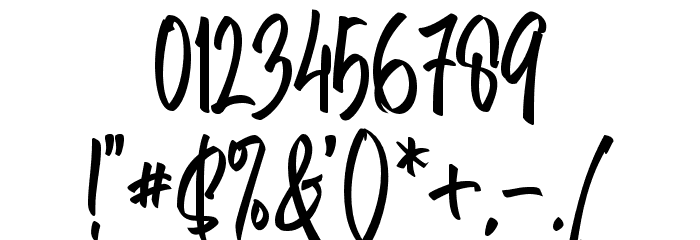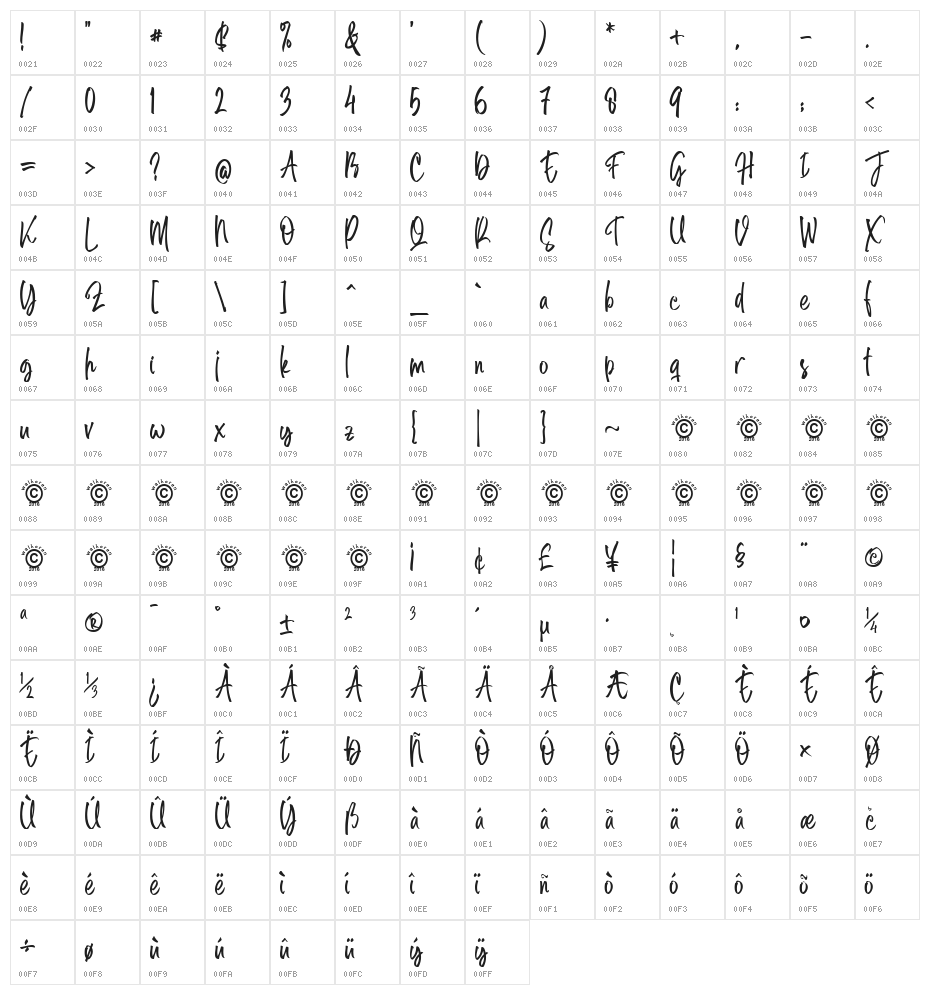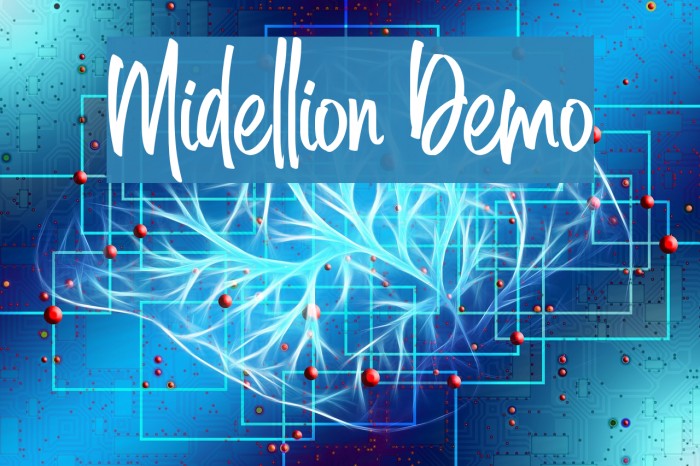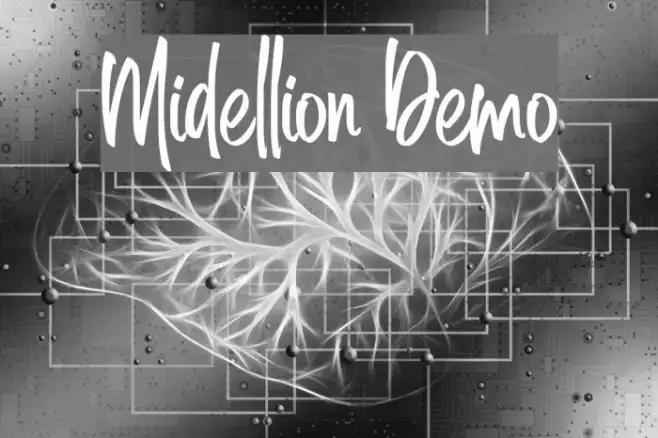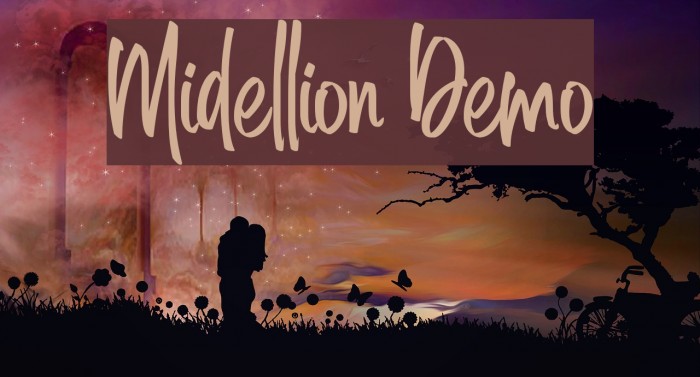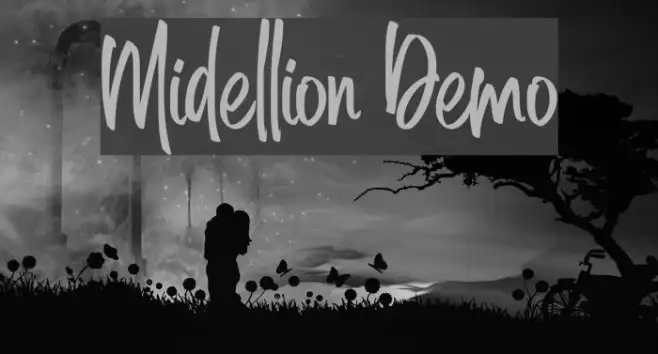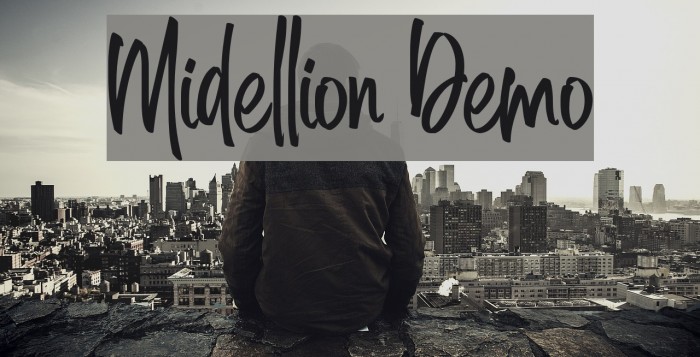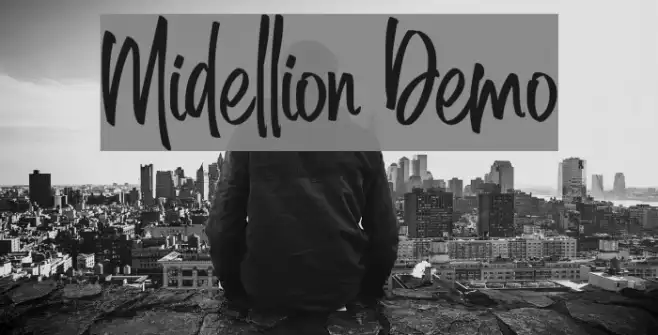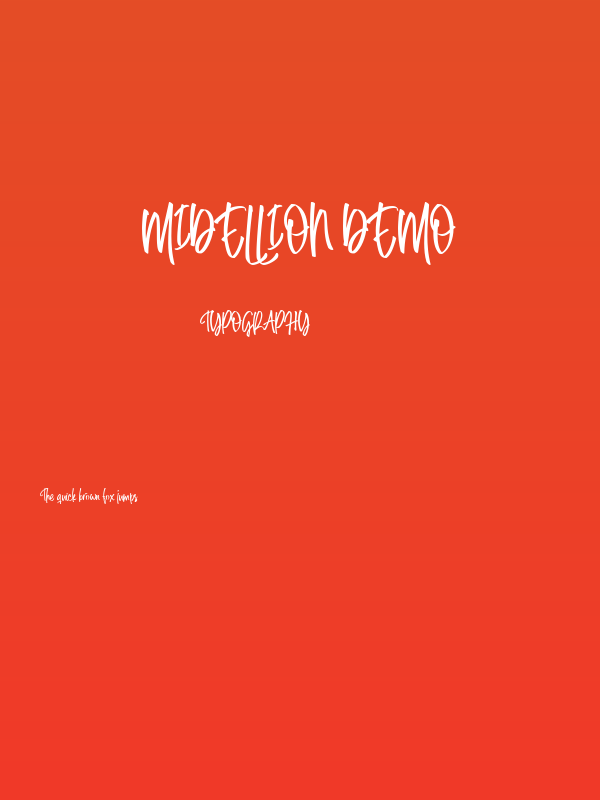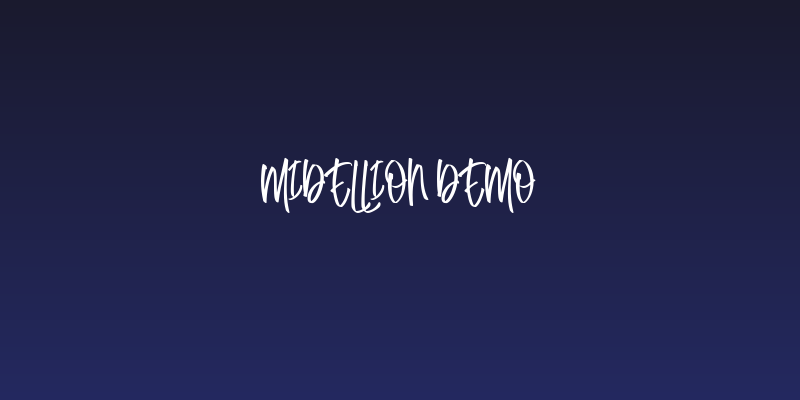
Midellion Demo Font
Midellion Demo Description
This font features a dynamic and expressive handwritten style, characterized by its fluid and energetic strokes. The letters are bold and slightly slanted, giving a sense of movement and personality. The uppercase letters are particularly striking, with exaggerated curves and loops, while the lowercase letters maintain a consistent flow. Numbers and special characters are crafted with the same attention to detail, ensuring a cohesive look across all elements. The overall impression is one of creativity and spontaneity, making it ideal for projects that require a personal touch.